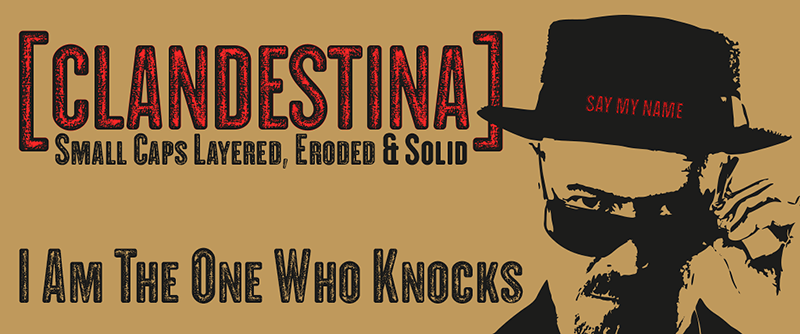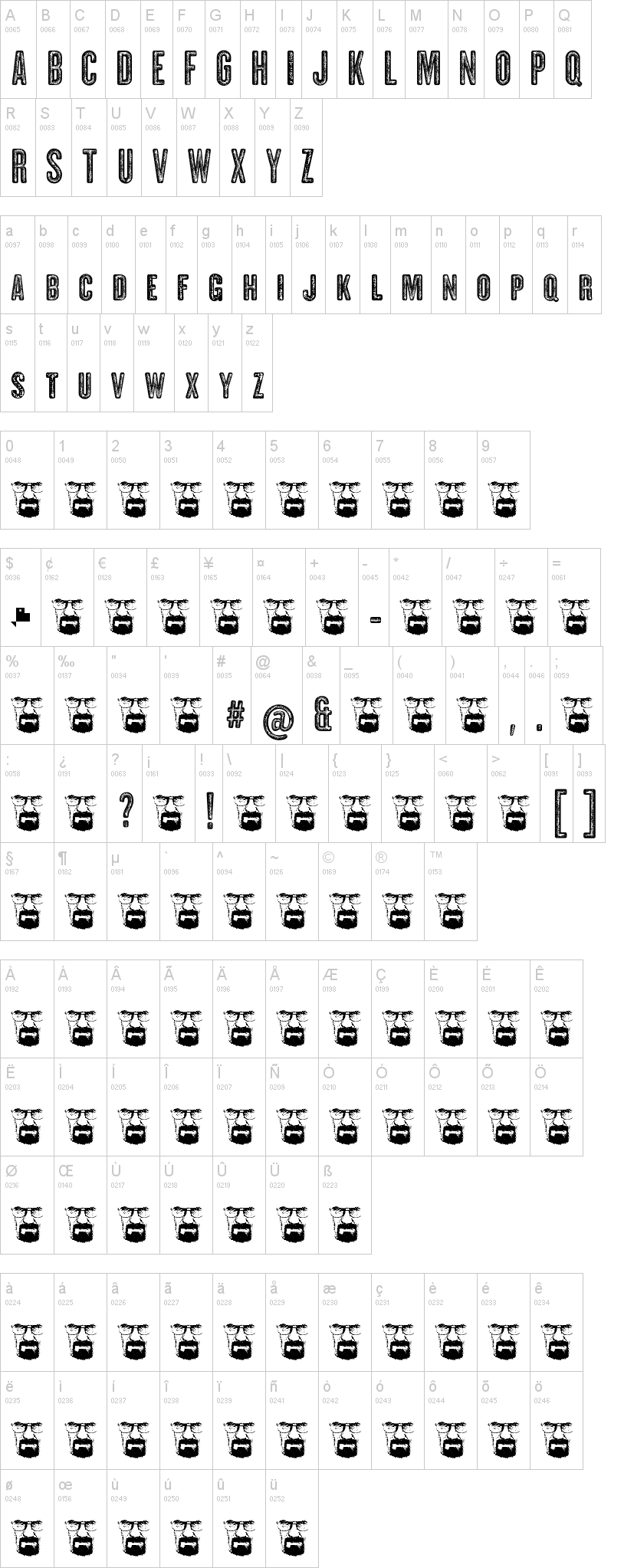
Note of the authorA grotesque font, small caps, extra condensed and eroded.
In commercial version two sans serif extra condensed fonts, small caps, solid and eroded, combinable with each other by layers to create purely typographic titles in two colors.
2 clandestine copies derived from my previous font sans serif H.H. Samuel, i have reviewed and optical corrections applied in all characters and I set the kerning completely after creating the versalitas versions of the original lowercase letters and numbers.
Include the Bitcoin symbol: b# (Ligatures)